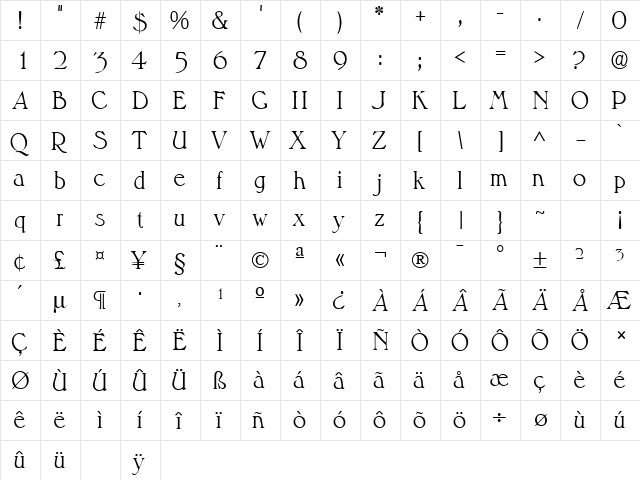
ValitSSK Regular
Design Context for ValitSSK Typeface
ValitSSK offers clean, dependable letterforms without strong stylistic allegiance, making it a practical choice for designers who need flexibility.